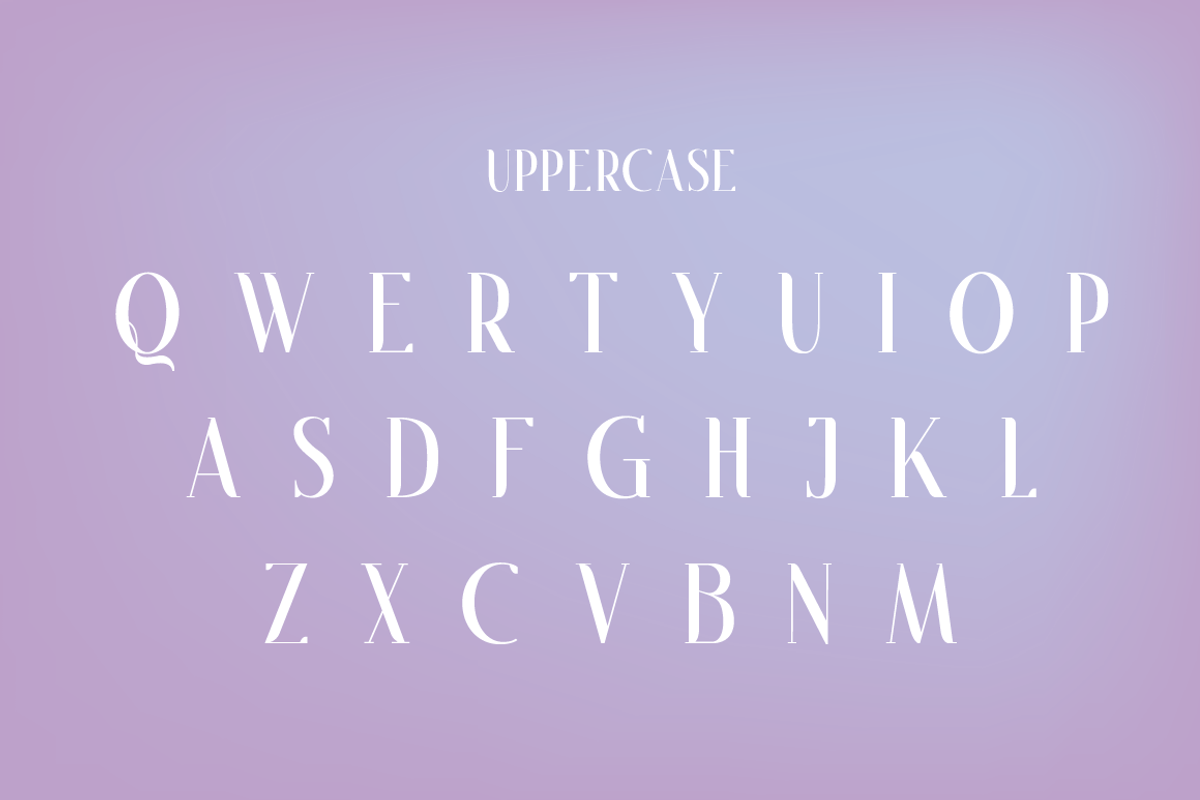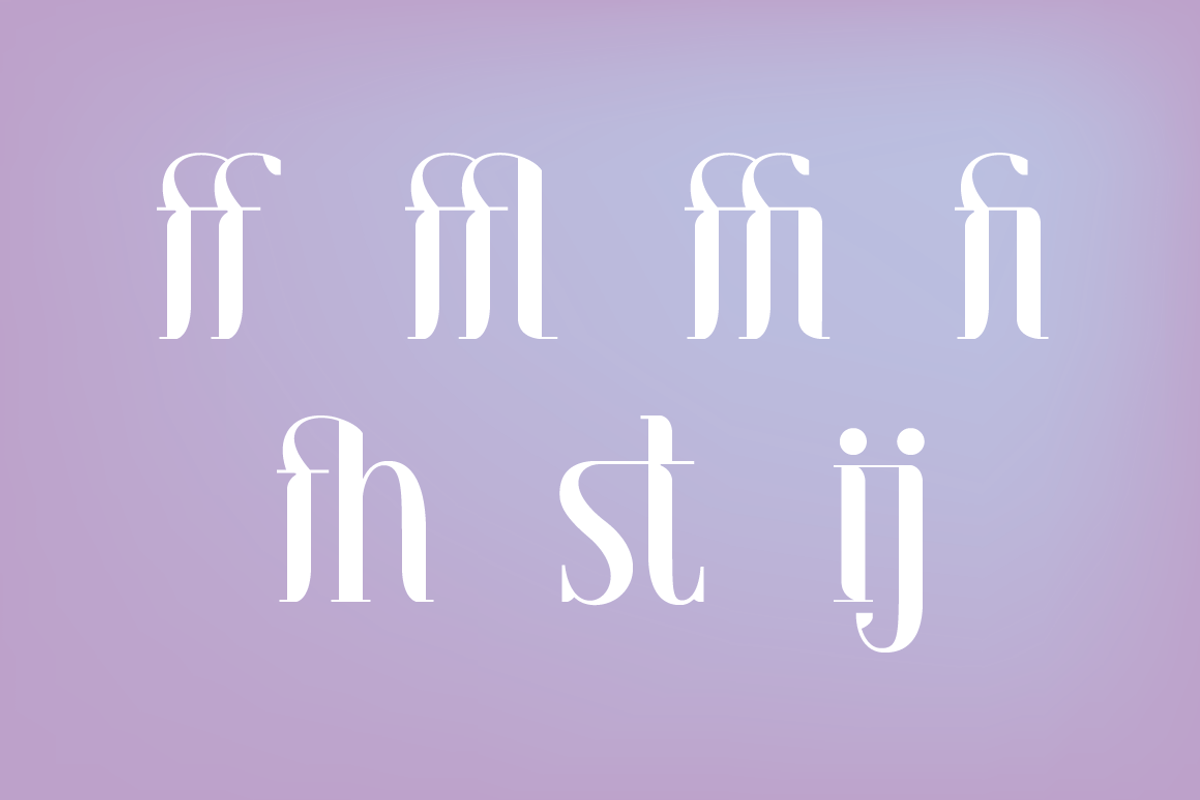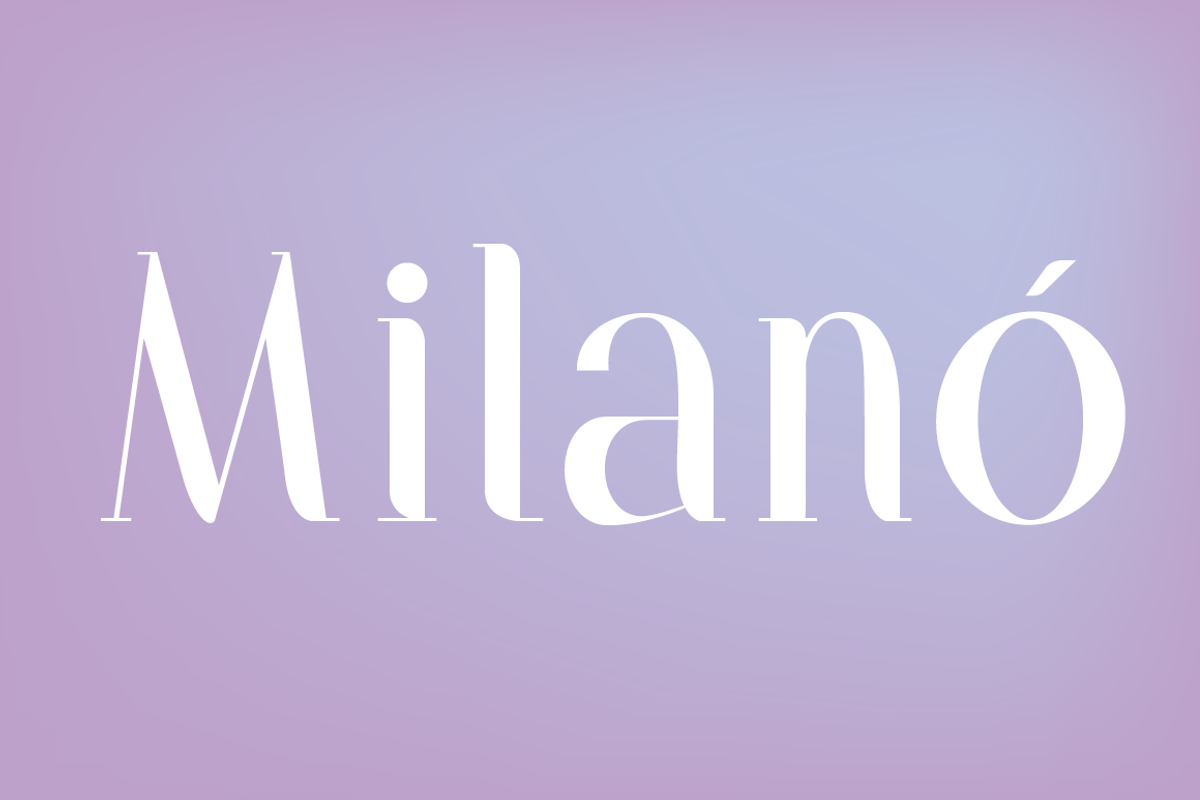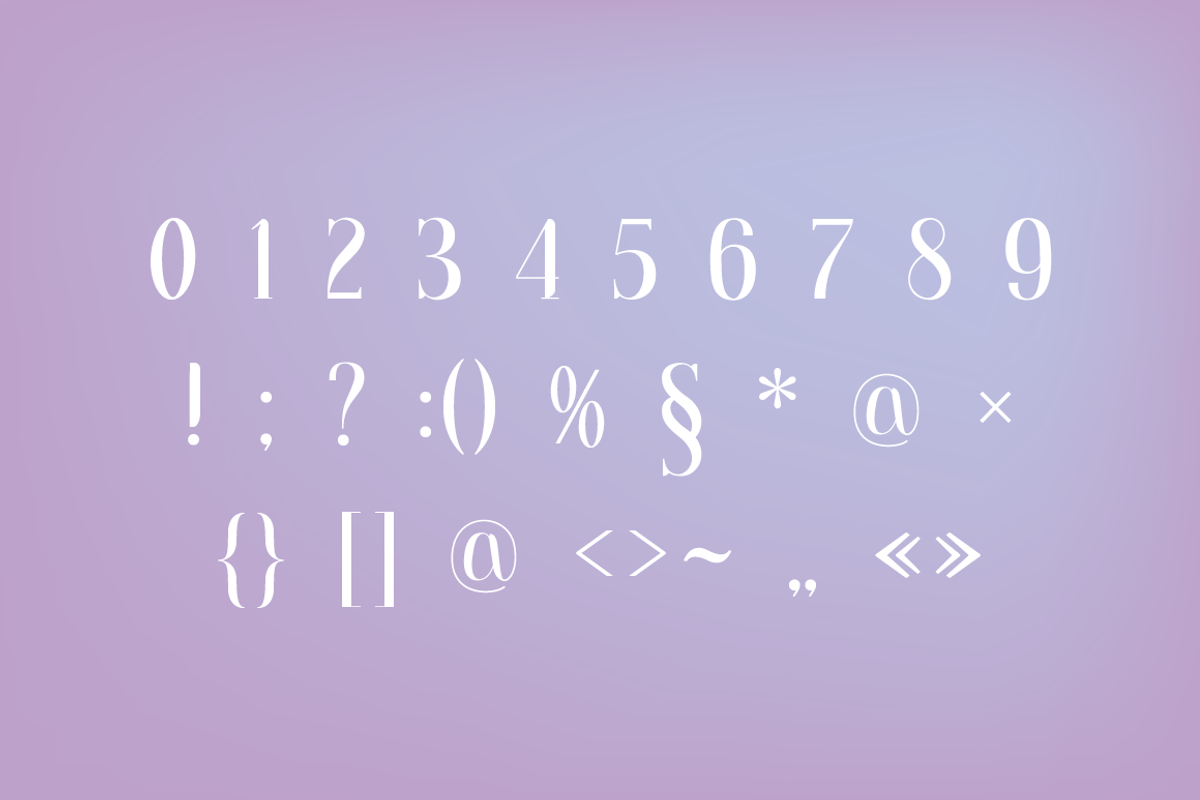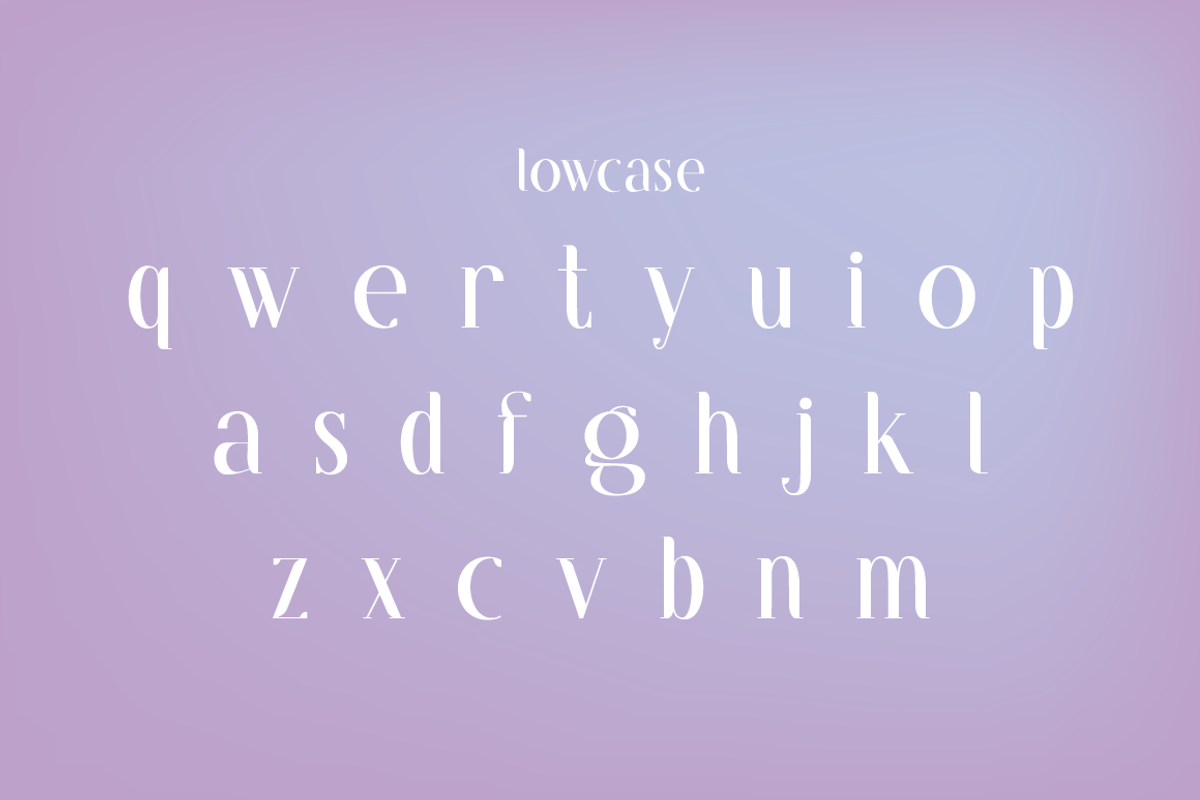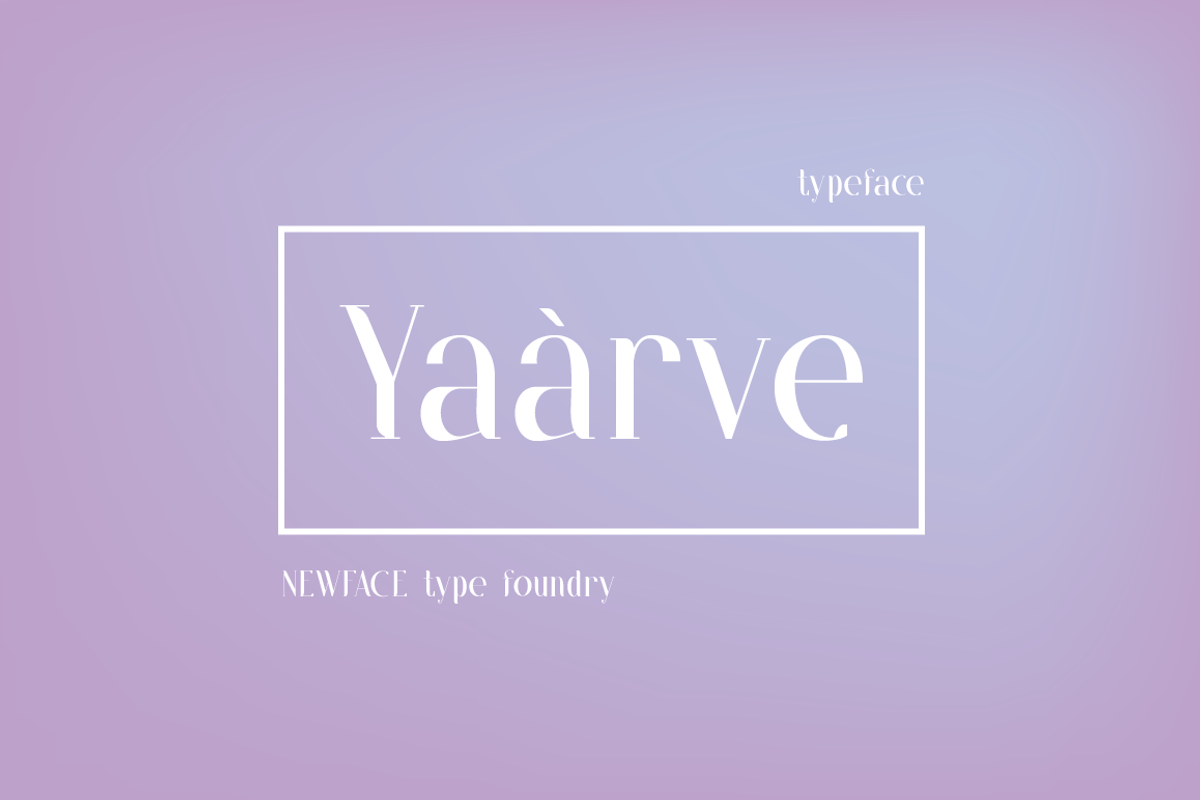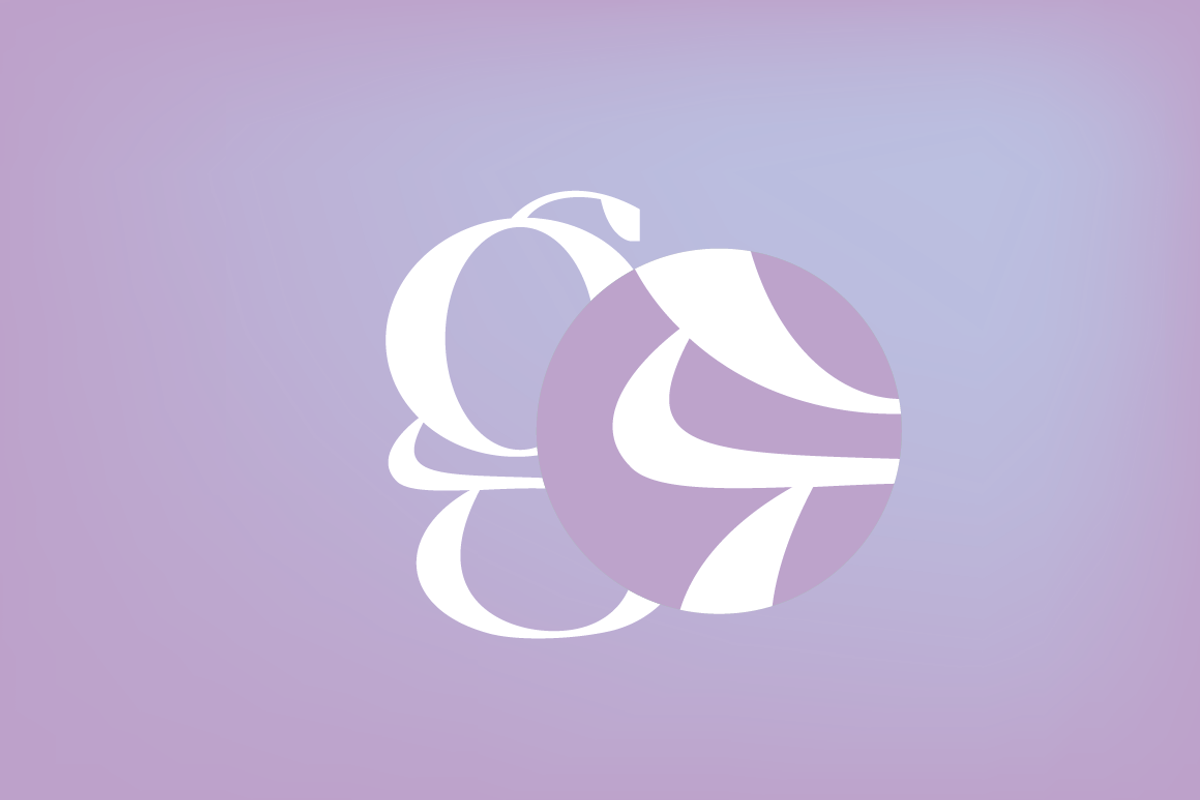
Yaarve Typeface
Yaarve Typeface by Newface is a font selected for branding, posters, packaging, typography.
- It includes standard ligatures and kerning pairs 1500+.
- Strong and expressive characters for a stylish design for printing and web design.
Why Yaarve Typeface is worth a look
Yaarve Typeface by Newface fits naturally into Branding, posters, packaging, typography.